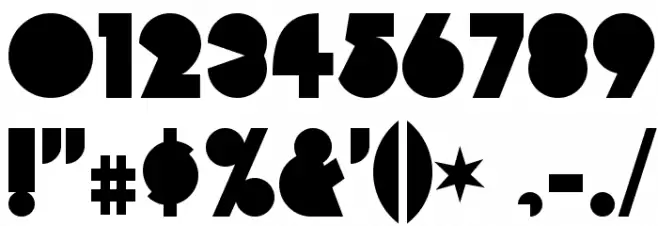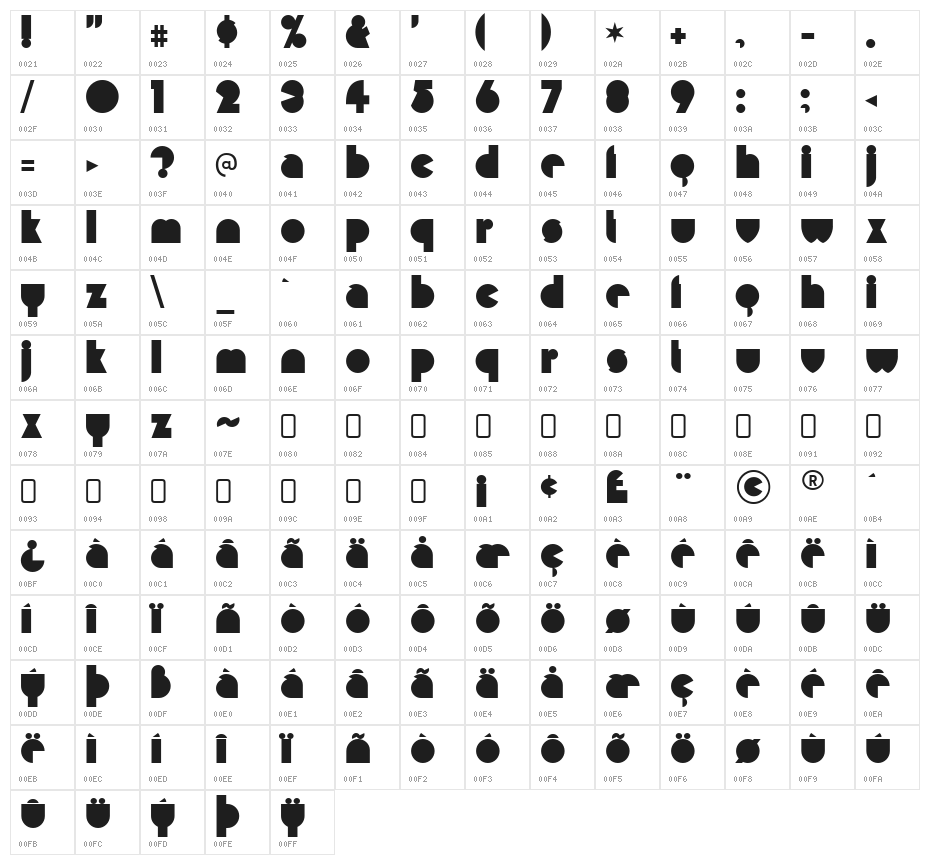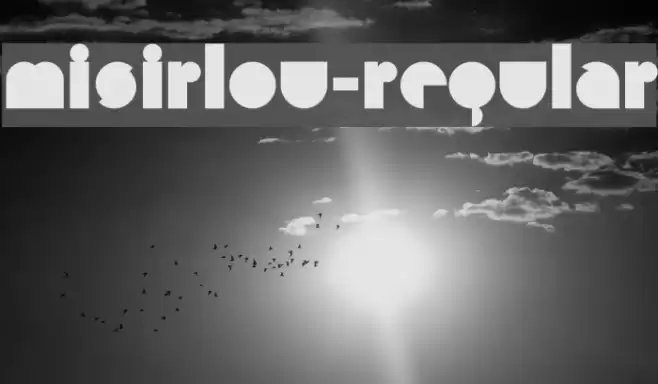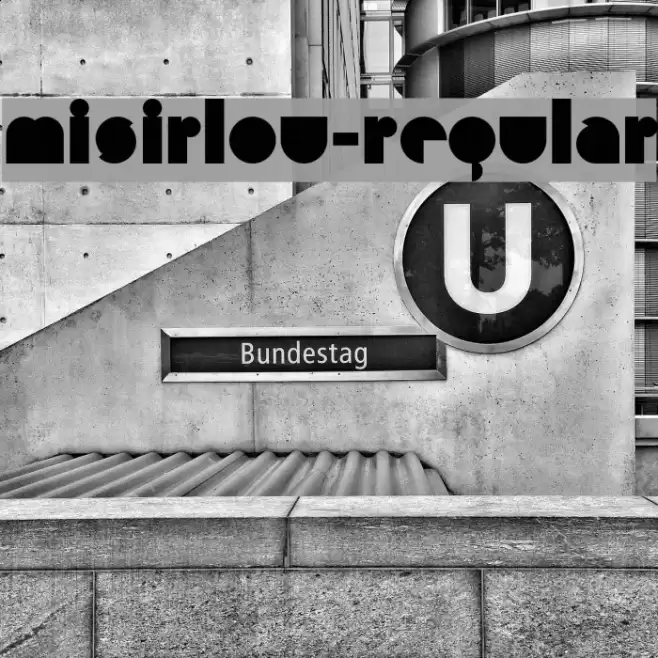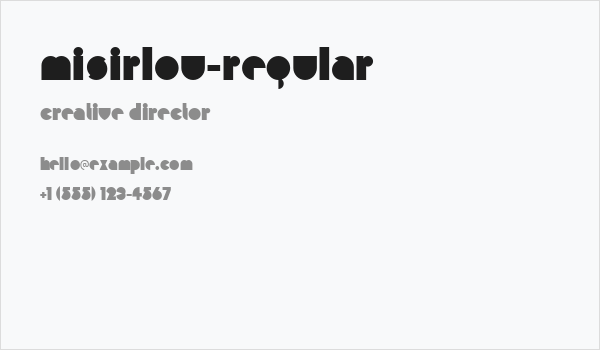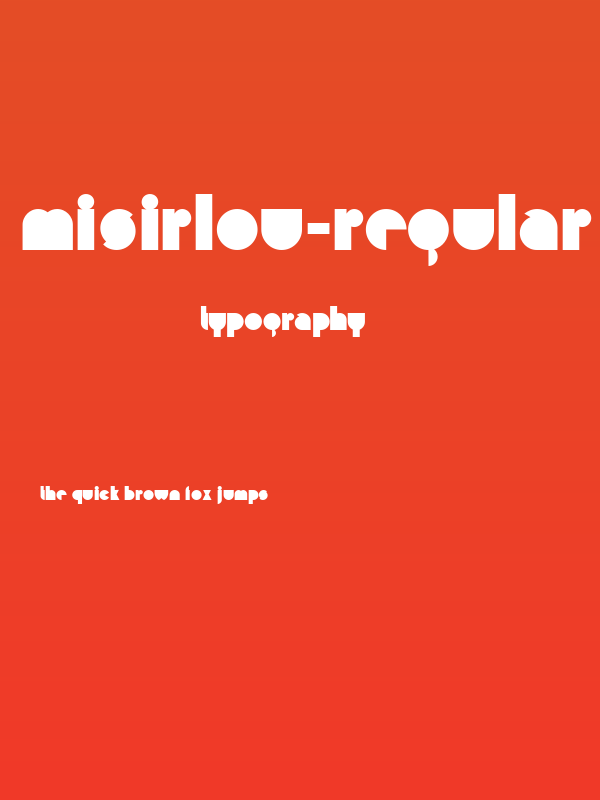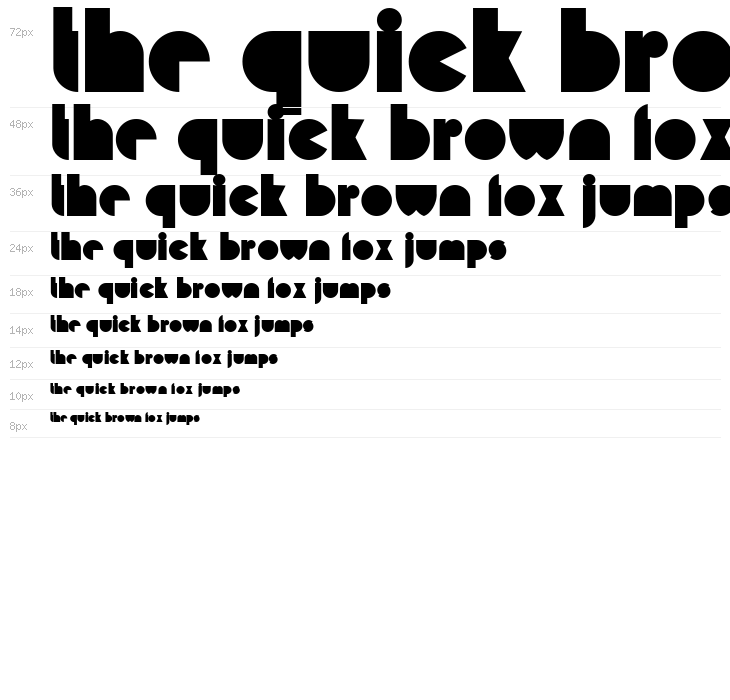
Misirlou-Regular Font
Misirlou-Regular Description
This font features a bold and geometric design, characterized by its thick, uniform strokes and rounded edges. The letters are constructed with a strong emphasis on circular and semi-circular shapes, giving it a playful yet structured appearance. The uppercase and lowercase letters maintain a consistent height, contributing to a cohesive look. The numerals and special characters follow the same design principles, ensuring visual harmony across all elements. Its distinct style makes it stand out, ideal for projects that require a strong visual impact.
| Proposed Projects | Ideal for branding, poster design, and headlines where a strong visual presence is needed. |